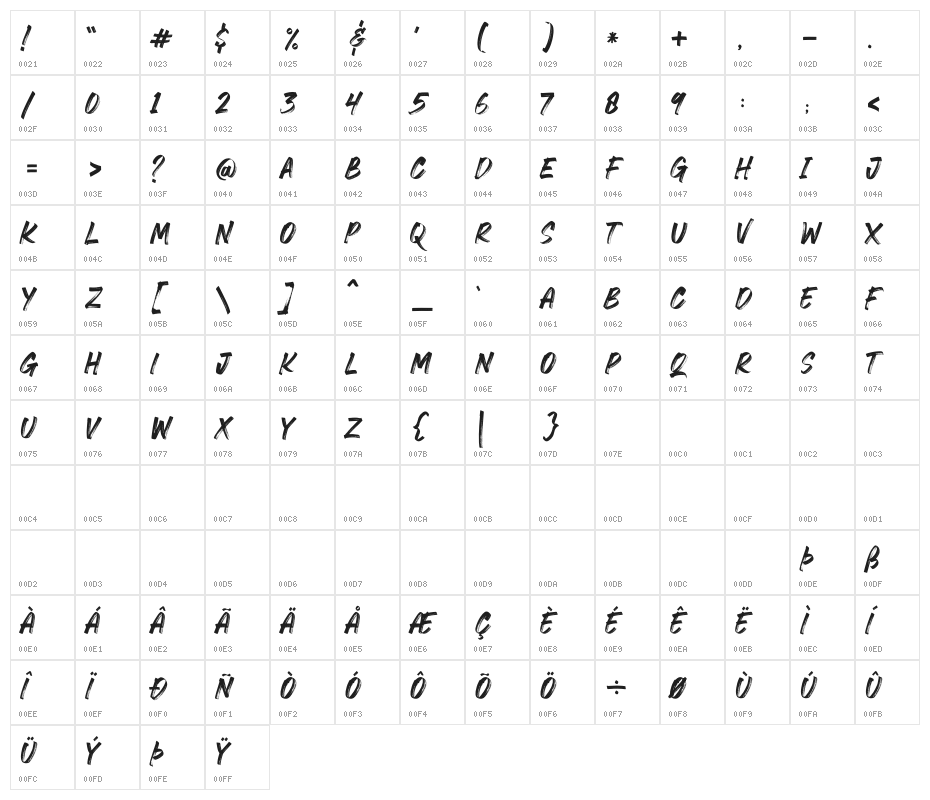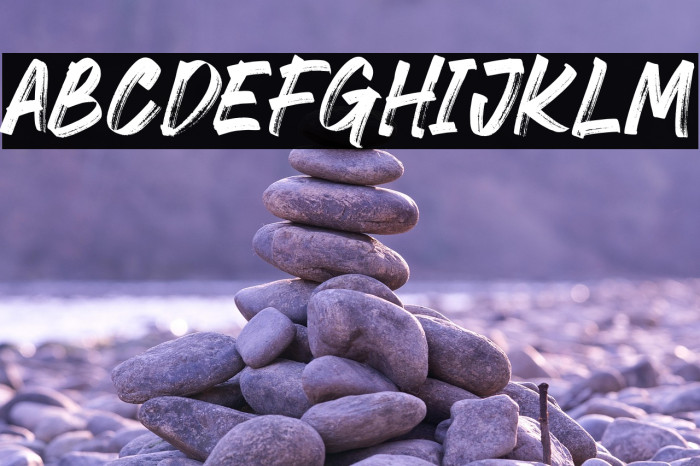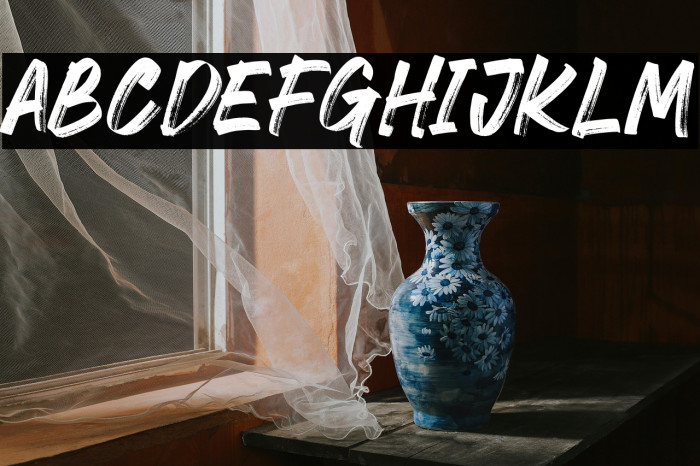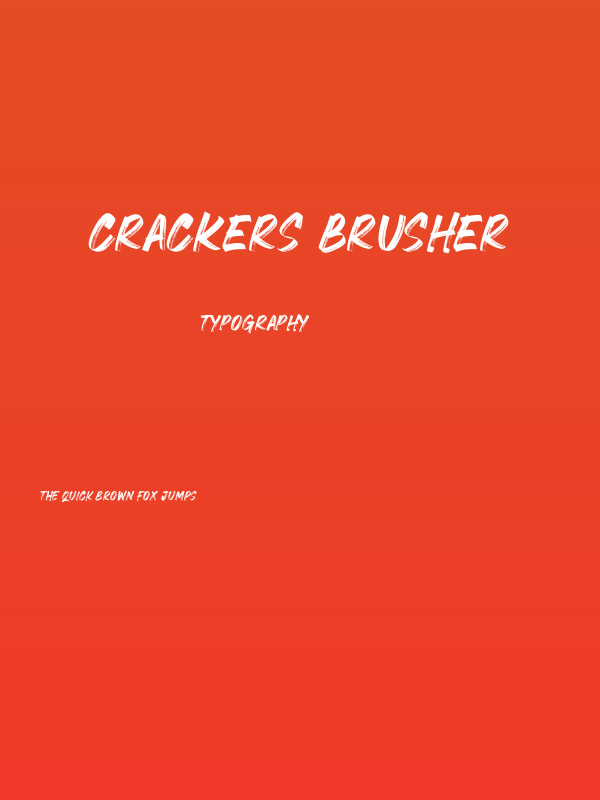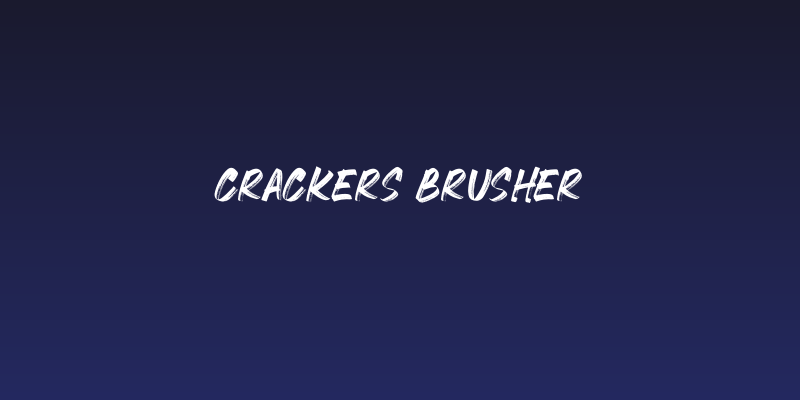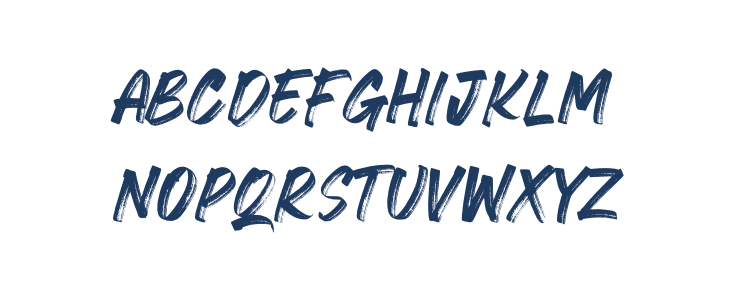
CRACKERS BRUSHER Font
CRACKERS BRUSHER Description
This font exudes a dynamic and energetic feel, characterized by its bold, brush-like strokes that give it a hand-painted appearance. The letters are slightly slanted, adding a sense of movement and fluidity. Each character is unique, with varying stroke thicknesses that create a lively texture. The uppercase and lowercase letters maintain a consistent style, while the numerals and special characters are equally expressive. This font is perfect for projects that require a personal touch, such as invitations, posters, or branding materials that aim to stand out.
| Proposed Projects | Ideal for creative projects like posters, invitations, branding, and any design needing a bold, artistic flair. |